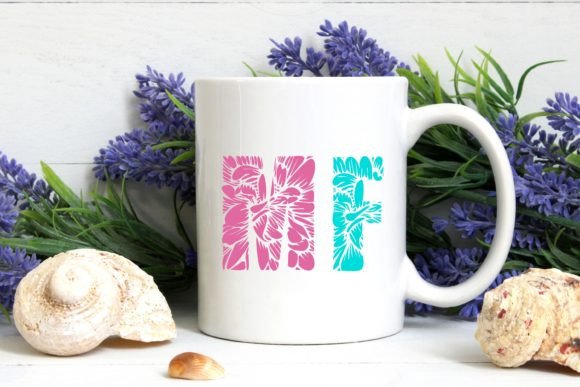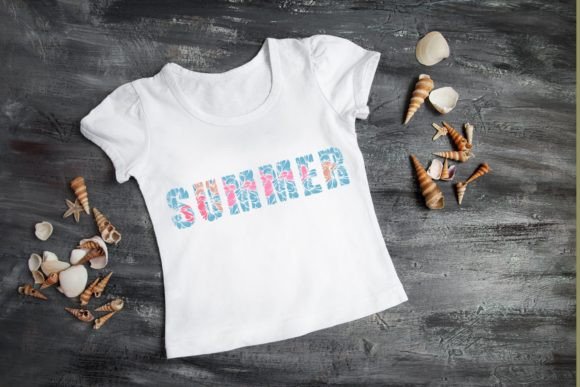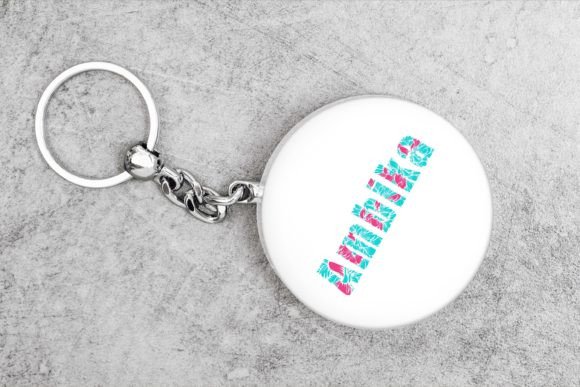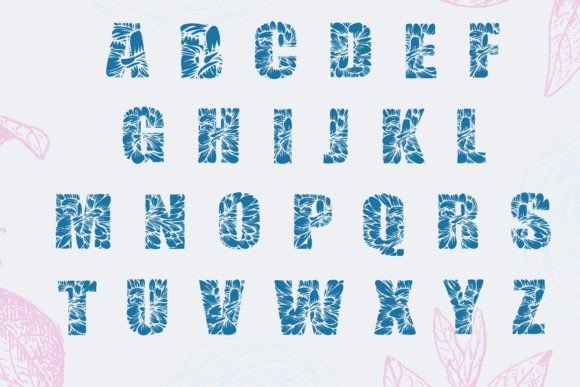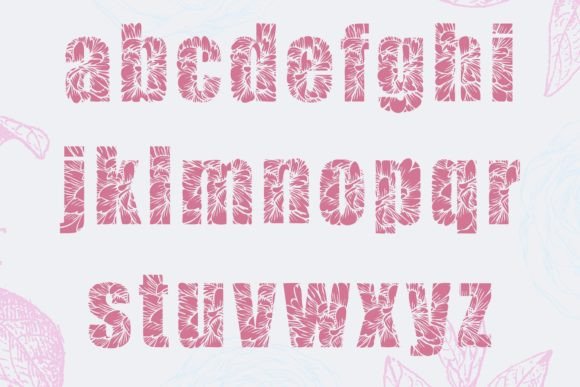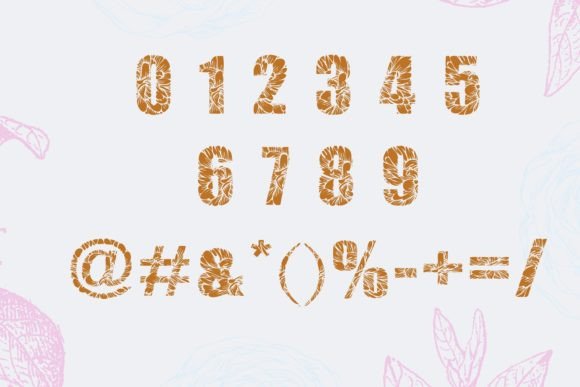
Dailsy Font: The Perfect Choice for Playful and Authentic Decorations
Are you a designer, crafter, or DIY enthusiast looking for a font that embodies playfulness and authenticity? Look no further than the Dailsy font! This bold and thick lettered decorative font is perfect for adding a touch of whimsy and fun to your designs, making it an ideal choice for decorations at weddings, parties, or any children’s activity.
What is Dailsy Font?
Dailsy font is a decorative font that features bold and thick letters, giving it a playful and eye-catching appearance. Its unique design makes it stand out from other fonts, making it perfect for adding a personal touch to your designs. Whether you’re creating invitations, banners, or other decorative materials, Dailsy font is sure to make your project pop!
Characteristics of Dailsy Font
So, what makes Dailsy font so special? Here are some of its key characteristics:
- Bold and Thick Letters: Dailsy font features bold and thick letters that give it a playful and eye-catching appearance.
- Playful and Authentic: The font’s unique design embodies playfulness and authenticity, making it perfect for adding a personal touch to your designs.
- Versatile: Dailsy font can be used for a variety of design projects, including wedding decorations, party invitations, children’s activities, and more.
- Easy to Read: Despite its bold and thick design, Dailsy font is easy to read, making it perfect for use in titles, headings, and other decorative elements.
Uses of Dailsy Font
Dailsy font is a versatile font that can be used for a variety of design projects. Here are some of the most popular uses of Dailsy font:
- Wedding Decorations: Dailsy font is perfect for wedding decorations, including invitations, banners, and other decorative materials.
- Party Invitations: The font’s playful and eye-catching design makes it perfect for party invitations, including birthday parties, baby showers, and more.
- Children’s Activities: Dailsy font is a great choice for children’s activities, including party decorations, activity sheets, and more.
- DIY Projects: Dailsy font is also perfect for DIY projects, including scrapbooking, card making, and other craft projects.
Tips for Using Dailsy Font
Here are some tips for using Dailsy font in your designs:
- Use it as a Statement Font: Dailsy font is perfect for use as a statement font, adding a bold and eye-catching touch to your designs.
- Pair it with Other Fonts: Dailsy font can be paired with other fonts to create a unique and interesting design.
- Experiment with Colors: The font’s bold and thick design makes it perfect for use with bright and bold colors.
- Use it in Combination with Images: Dailsy font can be used in combination with images to create a visually appealing design.
In conclusion, Dailsy font is a bold and thick lettered decorative font that embodies playfulness and authenticity. Its unique design makes it perfect for adding a personal touch to your designs, making it an ideal choice for decorations at weddings, parties, or any children’s activity. With its versatility, ease of use, and bold and eye-catching design, Dailsy font is sure to become a favorite among designers, crafters, and DIY enthusiasts.